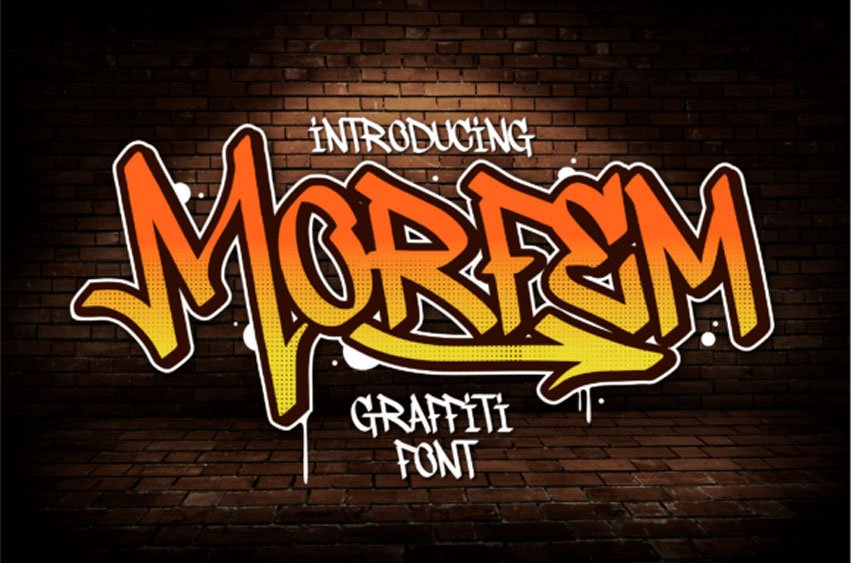
Morfem Font is a two-style graffiti display font perfect for product packaging, branding projects, magazines, social media posts, weddings, or just used to express words above the background.